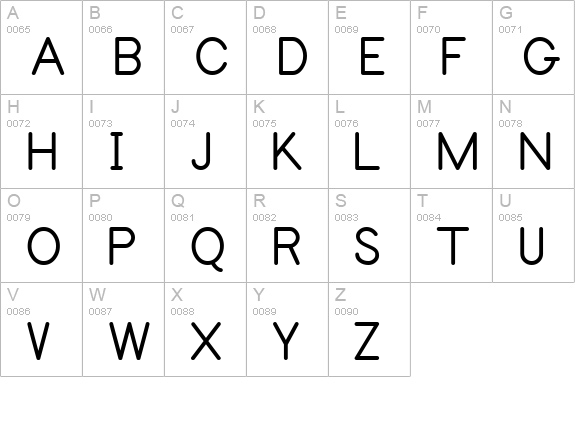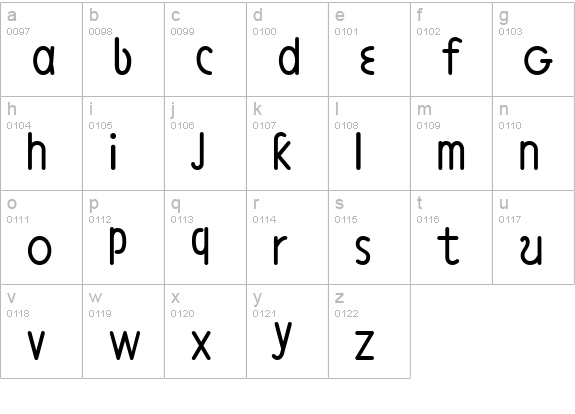
Philadelphia Line font is a modern and elegant typeface that exudes sophistication and style. With its sleek lines and minimalist design, this font is perfect for a variety of design projects, from branding to editorial layouts. The tall and slender letterforms give off a sense of professionalism and refinement, making it an ideal choice for businesses looking to make a bold statement with their typography. What sets Philadelphia Line font apart is that it is not only visually striking but also versatile and easy to read. Whether you are designing a logo, creating a poster, or crafting a website, this font will ensure that your message is conveyed clearly and effectively. And the best part? Philadelphia Line font is completely free to download at FontsMarket.com. So go ahead and add this beautiful typeface to your font collection today and elevate your designs to the next level.